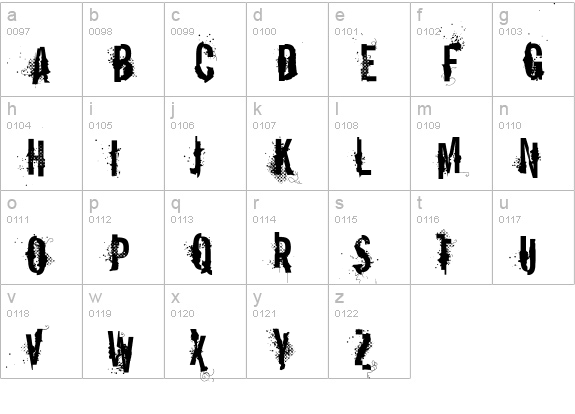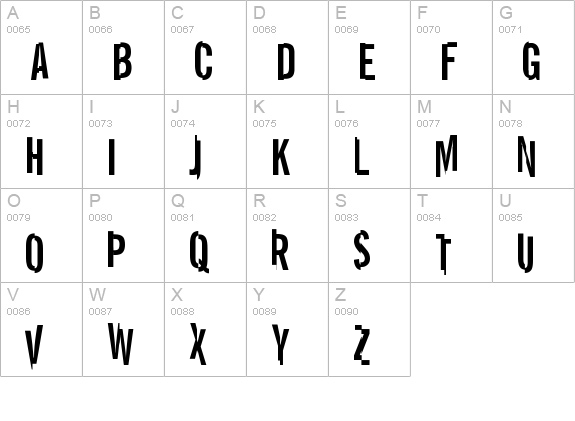
vtks REPORT erRoR Font Details
The vtks REPORT erRoR font is a unique and eye-catching display font that is perfect for adding a touch of quirkiness to your projects. With its distorted and irregular letterforms, this font exudes a sense of creativity and playfulness. Whether you're designing posters, logos, or social media graphics, the vtks REPORT erRoR font will make your text stand out from the crowd. The best part about this font is that it is completely free to download at FontsMarket.com. That's right, you can get your hands on this one-of-a-kind font without spending a dime. So why wait? Download the vtks REPORT erRoR font today and give your designs a fun and unique twist.